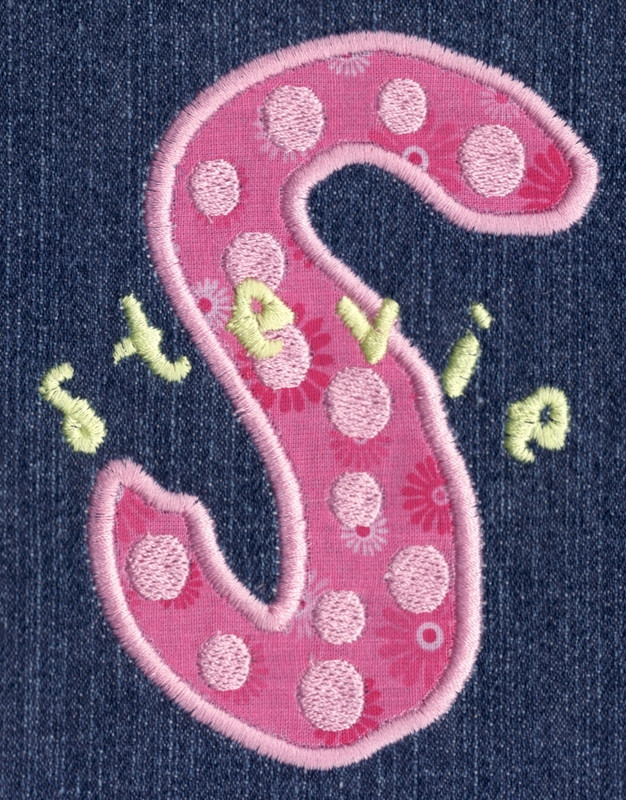
365 Pink Lemonade Applique 'N Dots Font
Pink Lemonade Applique 'N Dots Font comes in 2", 3", 4" & 5" heights based on the capital "A". Standard machine applique instructions included. Traditional applique satin overcast outlines with Dots in two color set up. Dots in the 2" and 3" size are satin stitch; dots in the 4" and 5" size are fill stitch. Each size includes uppercase letters, lowercase letters, numbers and four punctuation marks. All sizes included in purchase; many characters in the 4" and 5" sets exceed standard 4x4 hoop limitations. The stacked monogram stitch sample pictured above uses smaller letters from the set 368 Pink Lemonade Satin Font which is sold separately.